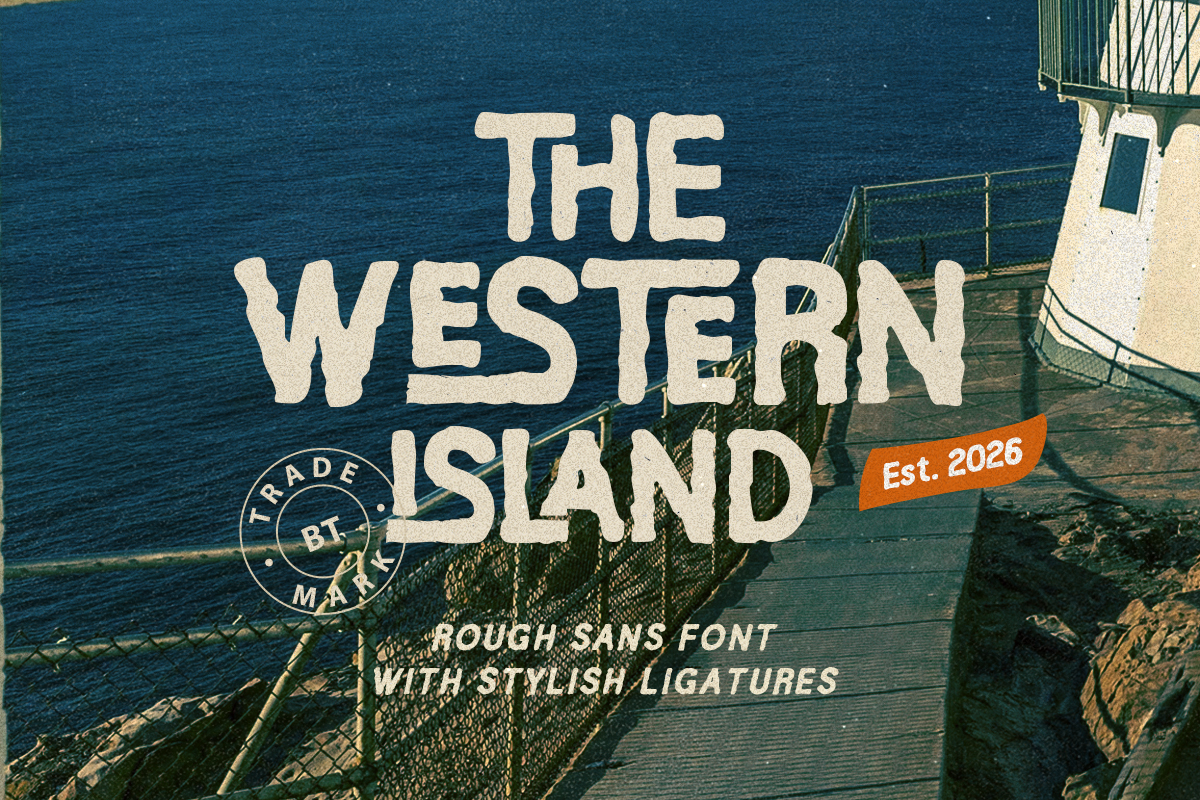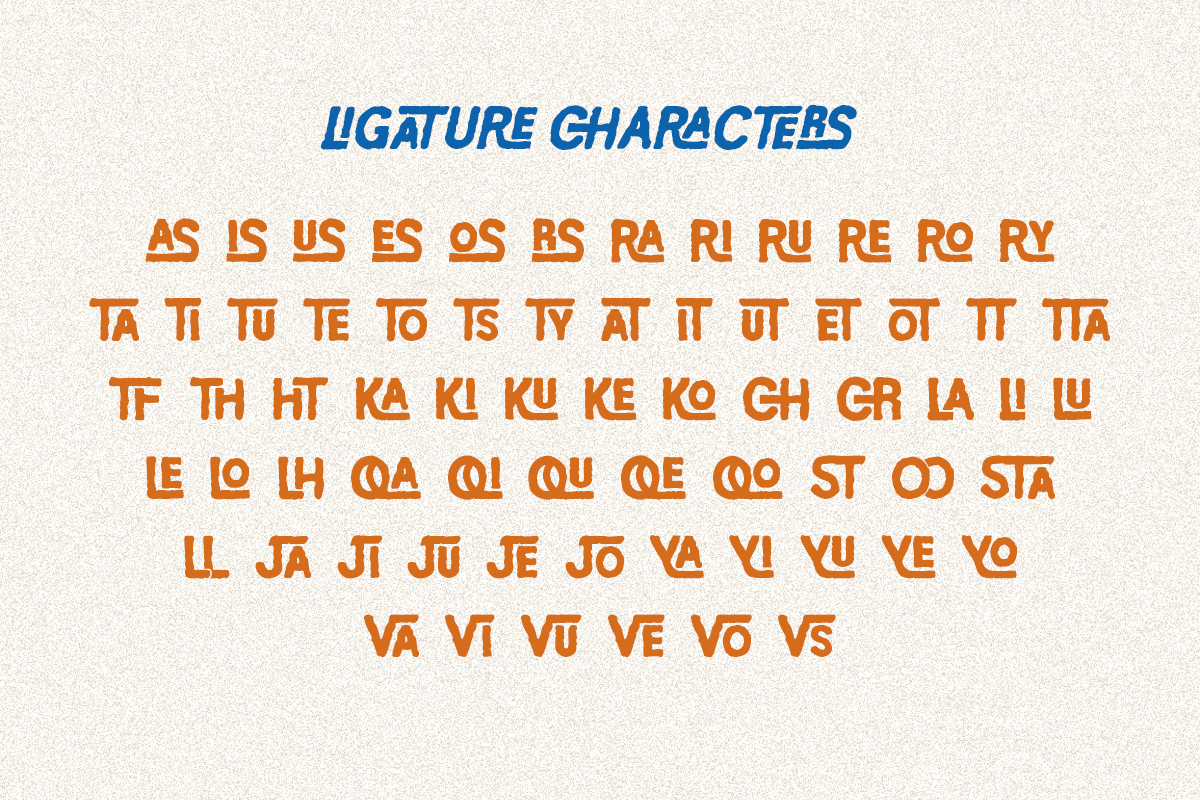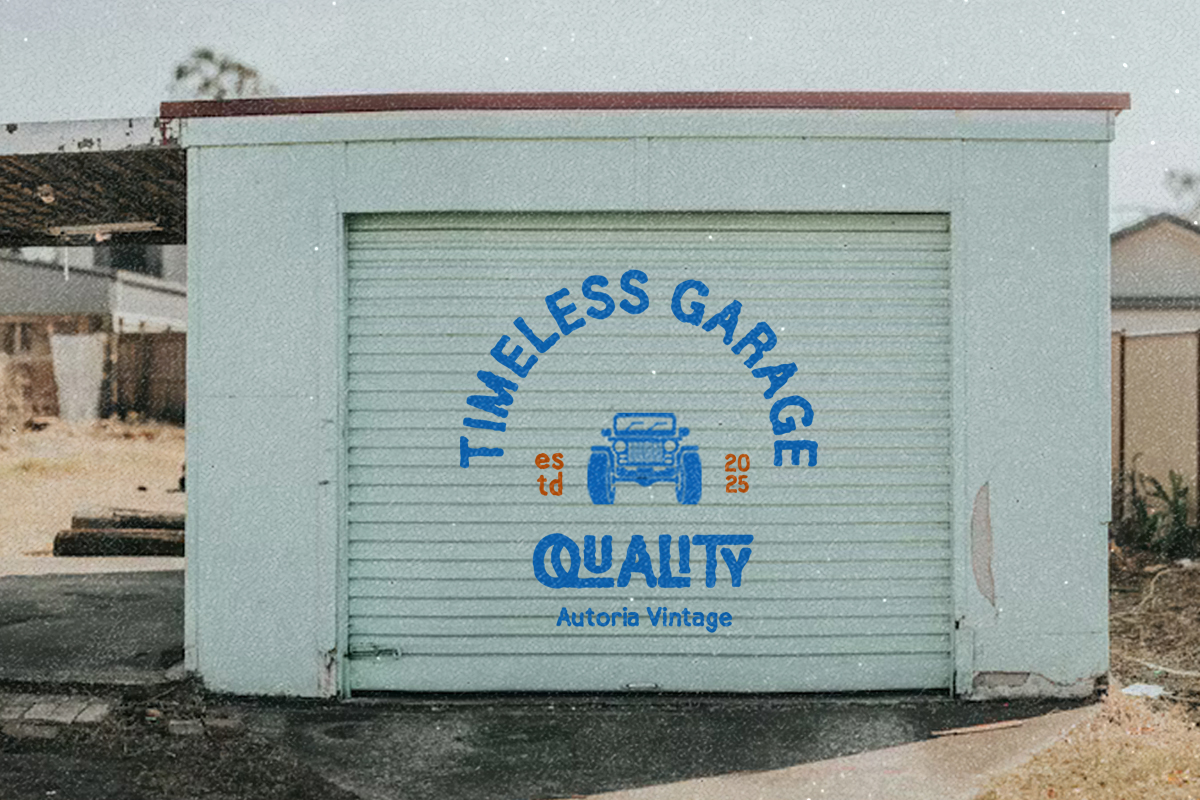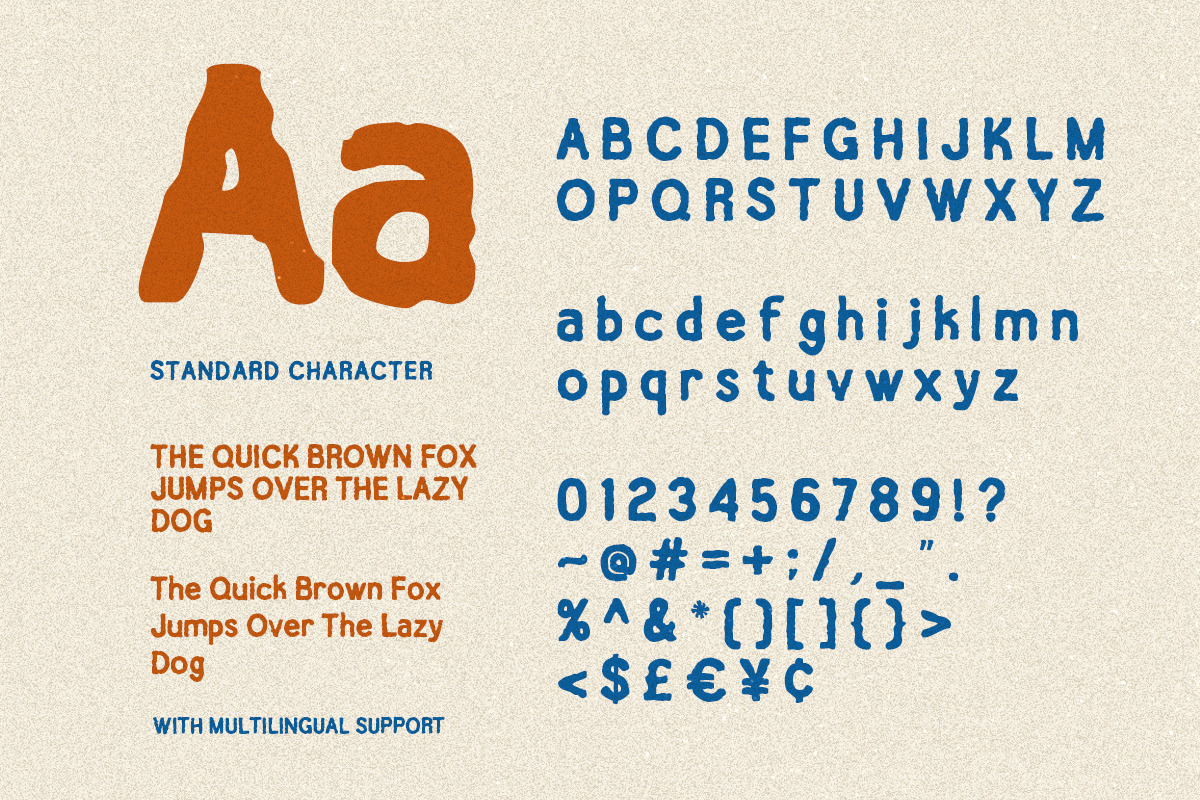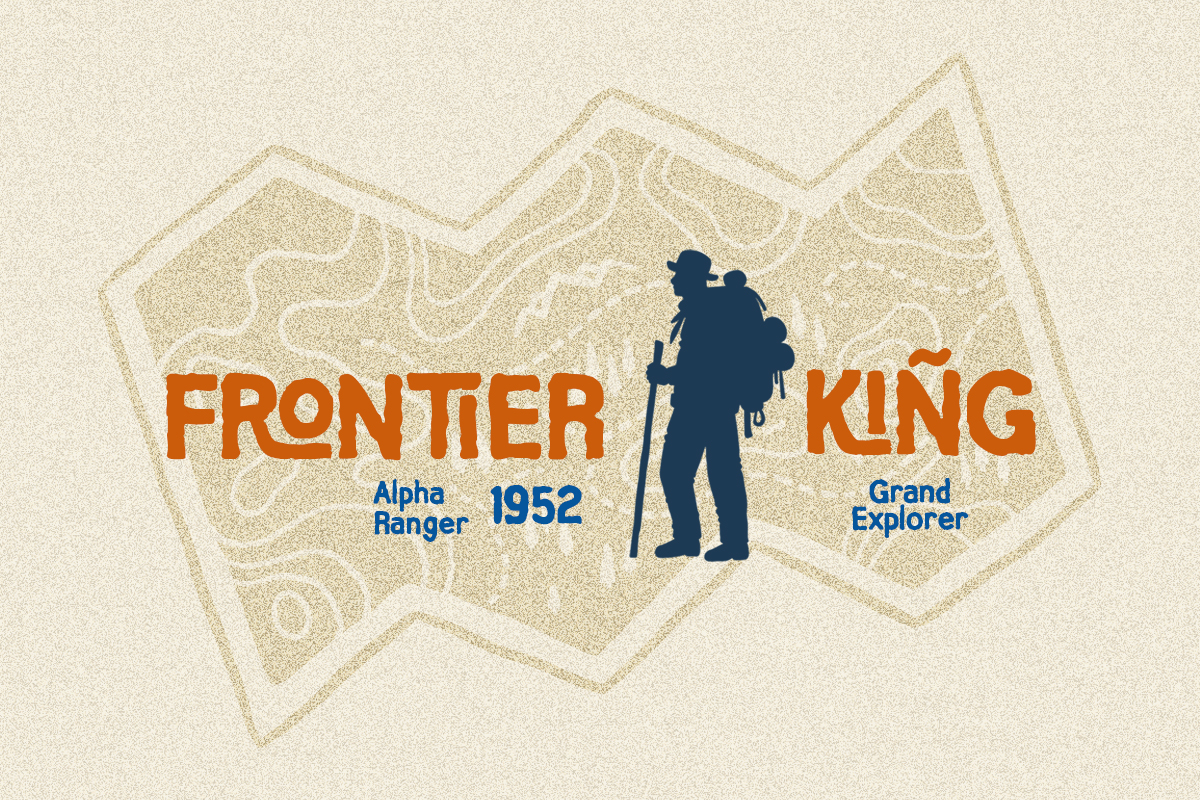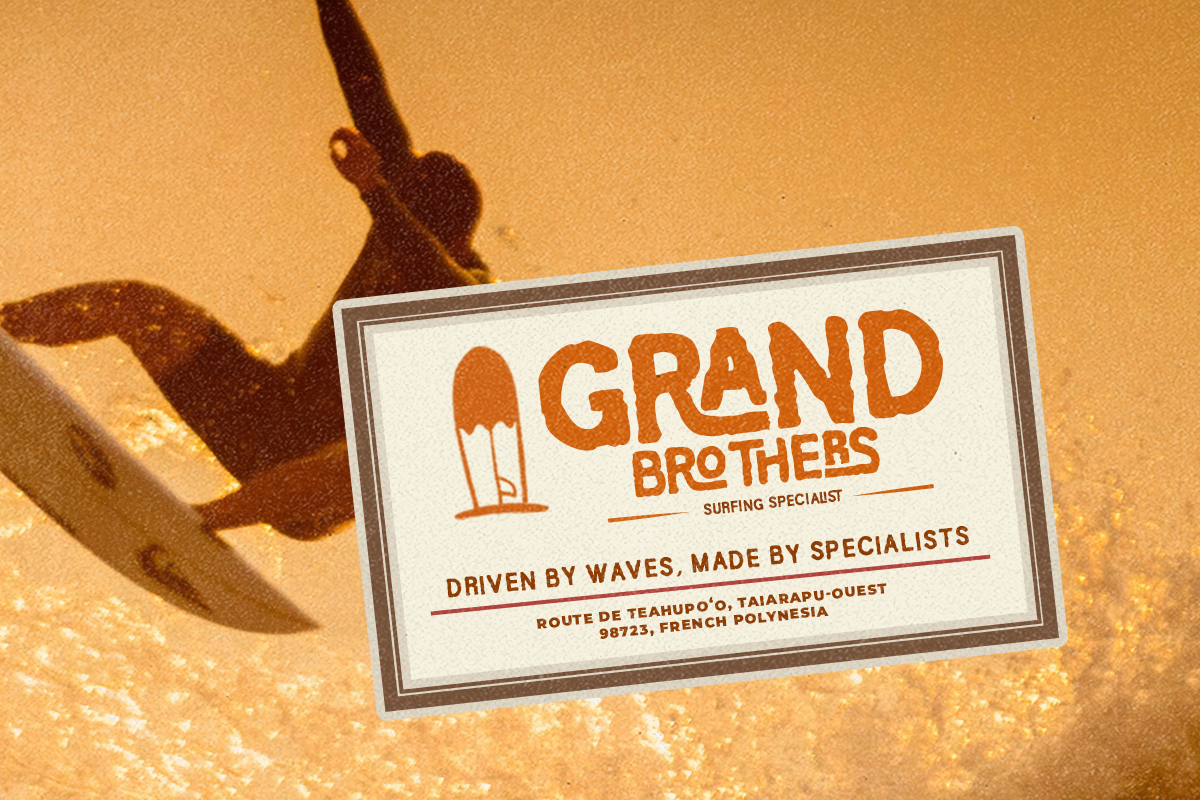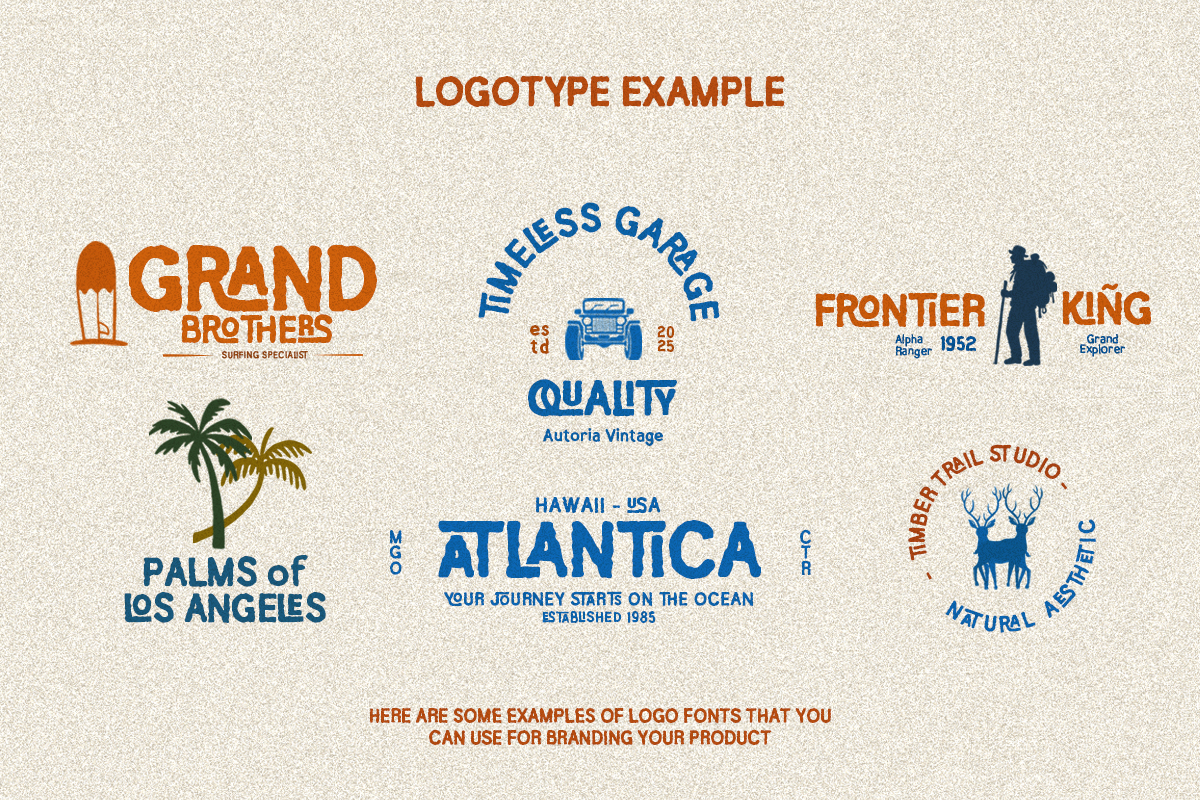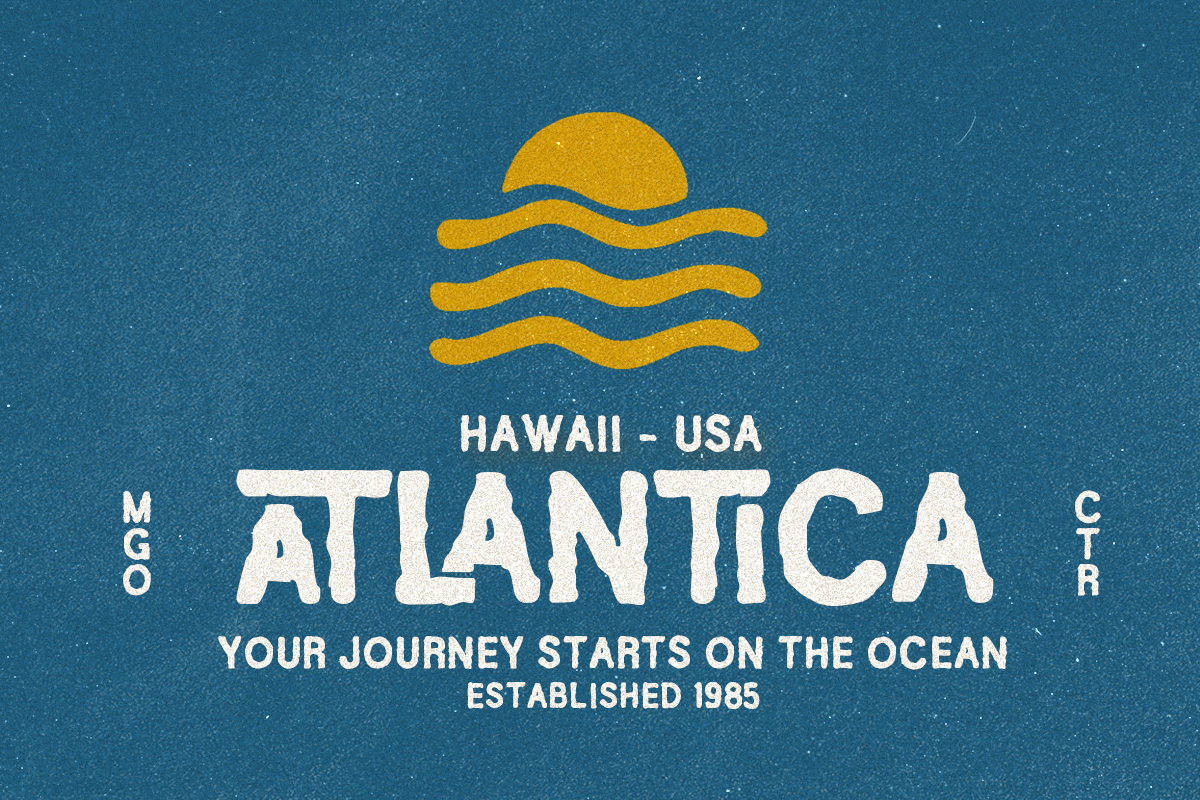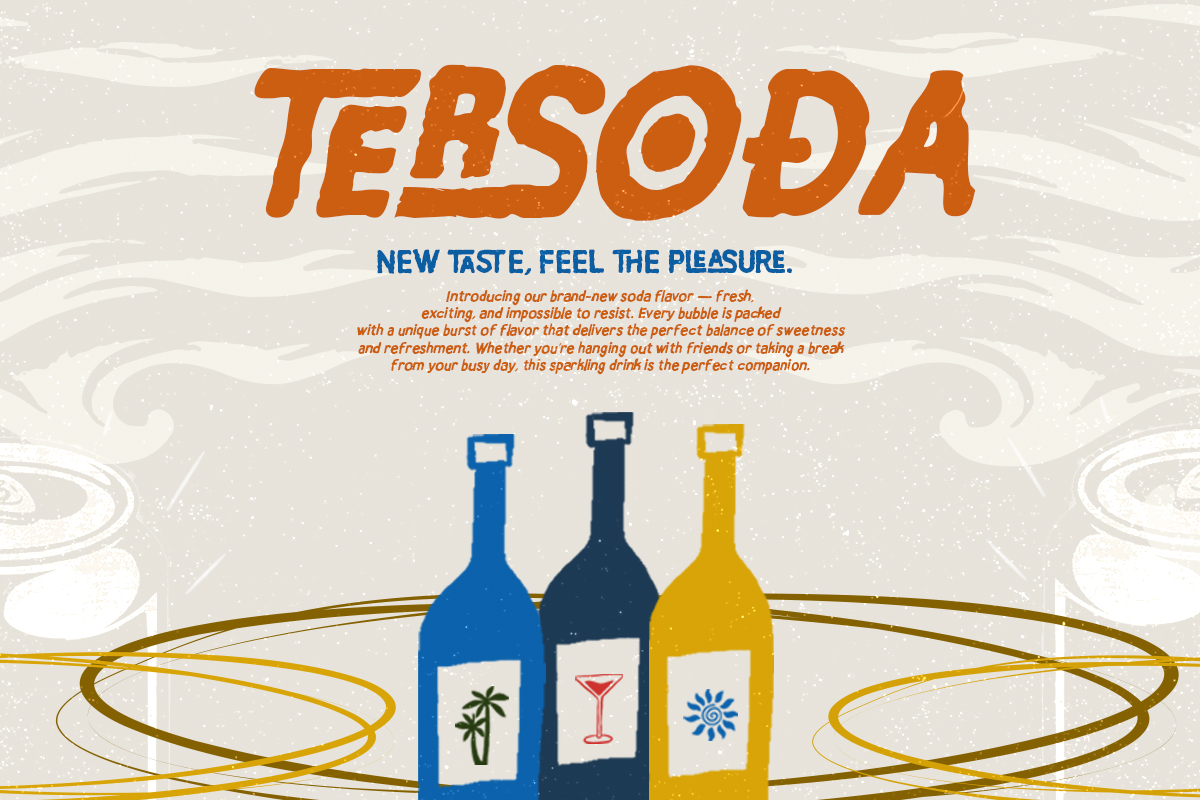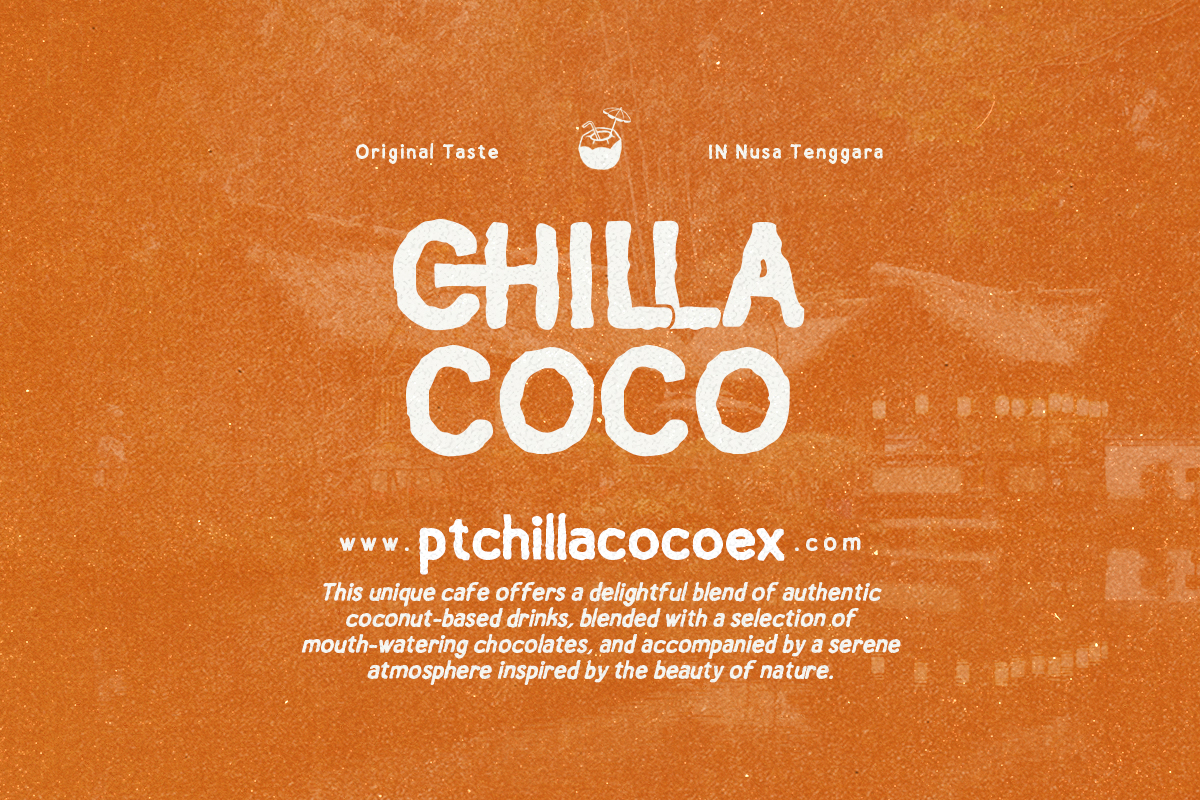
The Western Island - Ligature Font
The Western Island - Regular
The Western Island - Italic
The Western Island is a rough handcrafted sans with bunch of ligatures. You can use the font to make logo, poster, branding, or any project that need rough and handmade looks. With unique shape of the ligatures, this font will make your design more stand out. This font also support multi language.
The Western Island is a rough handcrafted sans with bunch of ligatures.